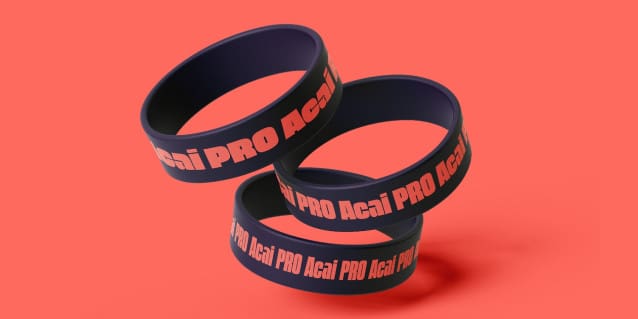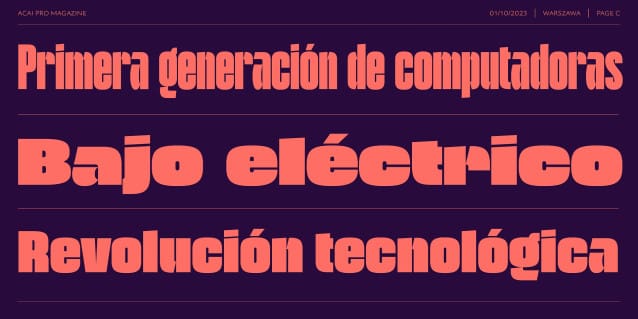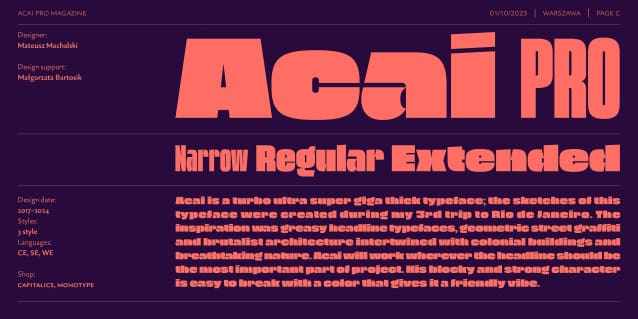
Acai PRO Font Family
Acai PRO Font Family, is a turbo ultra super giga thick typeface; the sketches of this typeface were created during my 3rd trip to Rio de Janeiro. The inspiration was greasy headline typefaces, geometric street graffiti and brutalist architecture intertwined with colonial buildings and breathtaking nature. Acai will work wherever the headline should be the most important part of the project. His blocky and strong character is easy to break with a color that gives it a friendly vibe.